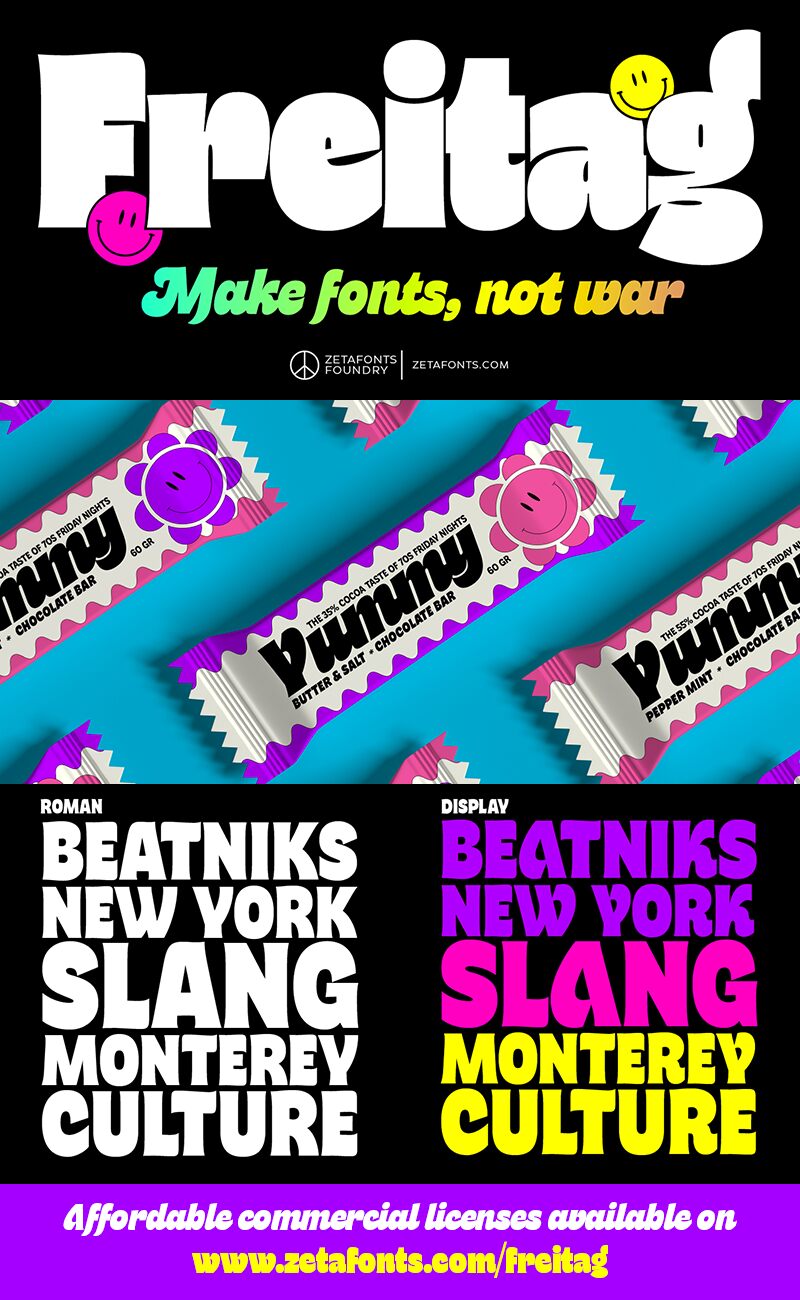
Freitag Display M Italic is a bold and striking sans serif font designed by Cosimo Lorenzo Pancini. Its extra-bold weight and semi-condensed width make it perfect for headlines, titles, and promotional materials that need to grab attention. The italic style adds a touch of sophistication and elegance to any design project, making it suitable for luxury branding, fashion editorials, or high-end product packaging. With its clean lines and modern look, Freitag Display M Italic is also an excellent choice for tech startups or creative agencies looking to stand out from the crowd. Let this font add a touch of boldness to your next project!
Probably as a reaction to the pragmatism of modernist design, the seventies saw an explosion of buoyant, vivacious typography. Psychedelia fueled a return to the melting, lush shapes of Art Nouveau while Pop culture embraced the usage of funky, joyful lettering for advertising, product design and tv titling. New low-cost technologies like photo-lettering and rub-on transfer required new fonts to be expressive rather than legible, pushing designers to produce, bubbly, high-spirited masterpieces, where geometric excess and calligraphic inventions melted joyfully.
Freitag is Cosimo Lorenzo Pancini's homage to this era and its typography. His starting point was the design of a heavy sans serif with humanist condensed proportions, flared stems and reverse contrast, that generated both the main family, and a variant display subfamily.
The main typeface family slowly builds the tension and design exuberance along the weight axis - a bit like our desire for the weekend increases during the week. In Light and Medium weights the font shows a more controlled, medium-contrast design, tightly spaced for maximum display effect. The Book weight follows the same design but uses a more relaxed letter spacing to allow usage in smaller sizes and short body copy. As weight increases in the Bold weight the style becomes more expressive, with a visible reverse contrast building up and culminating in the Heavy weight with his clearly visible "bell bottoms" feel.
In the display sub-family the design is pushed further by introducing variant letterforms that have a stronger connection to calligraphy and lettering. Also, the weight range becomes a optical one, with weights marked as Medium, Large, XLarge, as bringing the contrast and the boldness to the extreme creates smaller counterspaces that require bigger usage sizes. Another important addition of the display subfamiily is the connected italics that sport swash capitals and cursive letterforms, developed with logo design and ultra-expressive editorial design in mind. To balance the extreme contrast in the XL weight, contrast of punctuation is reduced, creating a rich, highly-dinamyc texture wherever diacritics and marks are used in the text.
The full family includes 16 styles + 4 variable fonts, allowing full control of the design over its tree-hugging design space. All 20 fonts share an extended latin charset with open type features including case sensitive forms, single and double story variants and alternate glyphs.
According to its creator, "Freitag is the typeface that sounds like an imaginary Woodstock where on the stage with Jimi Hendrix with Novarese, Motter, Excoffon and Benguiat playing onstage with Jimi Hendrix". Jeepers creepers!